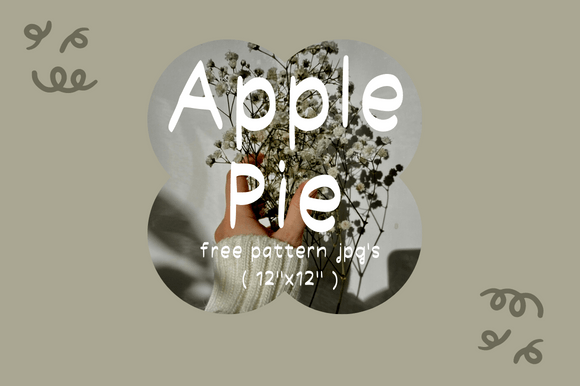
Introducing Apple Pie Font, the ultimate choice for designers seeking the perfect font to elevate their modern-design projects. Created by the talented sweetsparkles, this sleek and sophisticated display font is guaranteed to leave a lasting impression on your audience.
With its clean lines and bold curves, Apple Pie Font exudes an air of elegance and professionalism. Each letter is meticulously crafted to create a visually stunning display that will captivate and inspire. Whether you're designing a logo, a website, or any other graphic element, this font is the ideal companion to bring your vision to life.
The versatility of Apple Pie Font knows no bounds. It seamlessly integrates into a wide range of design aesthetics, from minimalist and contemporary to bold and edgy. Regardless of the style you're aiming for, this font effortlessly adapts and enhances your project, making it truly unique and eye-catching.
One of the greatest strengths of Apple Pie Font is its exceptional legibility. Even with its bold and striking appearance, every letter remains clear and easy to read, ensuring that your message is effectively conveyed. This font strikes the perfect balance between style and functionality, ensuring that your designs not only look great but also communicate with clarity.
In the world of design, first impressions are everything. Apple Pie Font guarantees that your projects will stand out from the crowd, leaving a memorable impact on your viewers. Whether you're designing for a corporate brand, a creative agency, or a personal portfolio, this font will elevate your work to new heights and set you apart as a true professional.